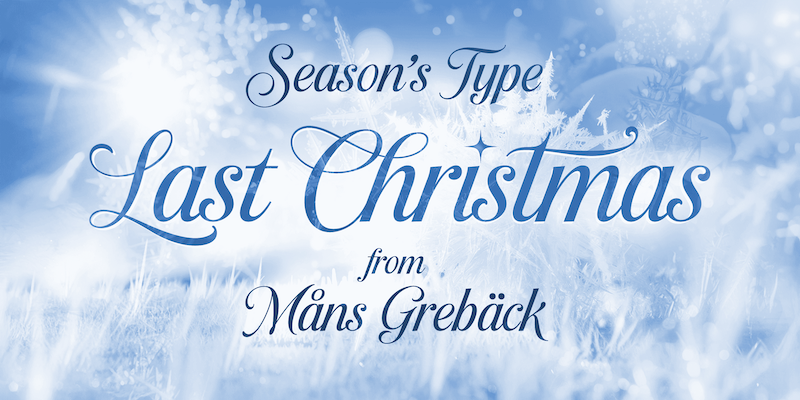
NOTE: This font is for PERSONAL USE ONLY! To purchase a commercial license, visit: https://www.mansgreback.com/product/last-christmas Last Christmas is a graceful script typeface; elegance with a festive charm. Its intricate swirls capture the warmth and joy of the holiday season. Use underscore _ anywhere in a word to create a swash. Example: Santa _Claus Use multiple underscores to make different swashes. Example: Yule_________time For questions, please visit www.mn.sg/faq |